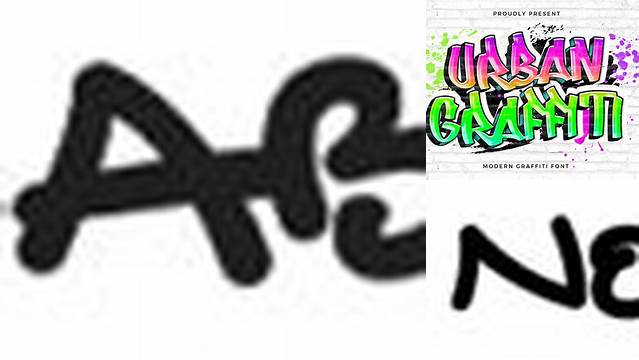
Mensrea Graffiti Font: Unleashing Urban Designs
Hey everyone! Today, we're diving deep into the vibrant world of typography with a special focus on the Mensrea Graffiti Free Font. This font is a fantastic tool for anyone looking to inject some raw, urban energy into their designs. Whether you're a seasoned graphic designer, a budding artist, or just someone who loves the look of graffiti, the Mensrea font offers a unique blend of street style and readability. Let's explore how this amazing font can elevate your creative projects. So, buckle up, grab your spray cans (metaphorically, of course!), and let's get started!
1. Introduction to the Mensrea Graffiti Free Font
Alright, guys, let's start with the basics. The Mensrea Graffiti Free Font is a typeface designed to mimic the bold, expressive style of graffiti art. It captures the dynamic energy and rebellious spirit of street art, making it perfect for projects that need a touch of urban edge. This font isn't just about aesthetics, though. It's also about functionality. Designers have carefully crafted the letterforms to ensure they remain readable, even when used in large sizes or against complex backgrounds. The Mensrea font typically features thick strokes, dynamic curves, and a sense of motion that truly embodies the spirit of graffiti. It is usually available for free, which makes it accessible to everyone. That is great news if you are on a budget and want to make your projects look very artistic. The font can be used in a variety of applications, from posters and flyers to website headers and social media graphics. Whether you're creating a design for a music event, a streetwear brand, or a personal project, the Mensrea font can help you make a statement. This font is like the perfect street artist: it can quickly grab attention and get people to look.
2. History and Inspiration Behind Graffiti Fonts
So, where did the inspiration for the Mensrea Graffiti Free Font come from? Let's take a trip down memory lane to explore the history of graffiti and how it has influenced typography. Graffiti art emerged as a form of self-expression in urban environments. Street artists often use public spaces as their canvas, creating colorful and eye-catching murals and tags. This raw, unfiltered form of art quickly evolved from simple tagging to complex and visually stunning pieces. As graffiti gained popularity, designers and typographers began to recognize its potential. They started creating fonts that captured the essence of graffiti art. These fonts were designed to replicate the bold strokes, dynamic forms, and rebellious spirit of the street art. The designers drew inspiration from a variety of sources, including the spray paint techniques, the use of vibrant colors, and the overall aesthetic of graffiti art. The designers aimed to create typefaces that could be used to bring the energy and excitement of graffiti into the digital and print world. The history of graffiti fonts is a testament to the creative spirit of artists and designers. Mensrea fonts perfectly reflect the evolution of street art and its influence on graphic design. These fonts are a tribute to the culture and the power of visual communication. The history of graffiti art and its influence on typography is a fascinating journey that spans several decades, from its roots in the streets to its presence in design.
3. Features and Characteristics of the Mensrea Font
Now, let's talk about what makes the Mensrea Graffiti Free Font stand out. This font typically boasts several key features that capture the essence of graffiti style. The font typically features bold, thick strokes. This is one of the defining characteristics of graffiti. The strokes create a strong visual impact, making the text stand out on any background. The curves are often dynamic and fluid, giving the font a sense of motion and energy. The designers have also included unique letterforms and letter variations, adding visual interest and personality to each word. The Mensrea font usually includes a range of special characters, symbols, and alternate glyphs, allowing for even more creative possibilities. The font's versatility also enables you to use it in various projects, from posters to logos. Despite its complex style, the designers often prioritize readability. This is to ensure that the font can be used in a variety of contexts without sacrificing legibility. The Mensrea font isn't just a set of letters; it's a statement. It conveys the spirit of the street with a fresh and modern approach. The designers have balanced aesthetic appeal with practicality. These features work in harmony to create a unique and memorable typeface.
4. Best Uses for the Mensrea Graffiti Style Font
Ready to put the Mensrea Graffiti Free Font to work? This font is super versatile, so you can use it in tons of different projects! It is excellent for posters and flyers, especially if you're promoting a music event, a street art exhibition, or any event with an urban theme. The bold and expressive style immediately grabs attention and conveys a sense of excitement. It's also a fantastic choice for logos and branding. If you're designing a logo for a streetwear brand, a skateboarding company, or a music label, this font can help you establish a unique and edgy identity. Consider using it for website headers and social media graphics. The Mensrea font can bring a touch of urban flair to your online presence. You can also use it in album art and merchandise designs. Create visually striking covers for music albums, t-shirts, and other products. Don't forget about personal projects! Use the font for invitations, greeting cards, or even custom art prints. You can create eye-catching typography art to decorate your home. The only limit is your imagination. This font is versatile enough to adapt to a wide range of design needs. The font's style can add a vibrant layer to your design.